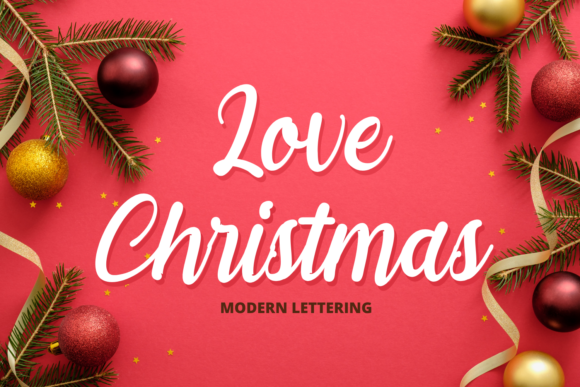
Dive into the enchanting world of Christmas with our exquisite Love Christmas Font, a creation of fiqiart that captures the festive spirit with every stroke. This script font is more than just a collection of letters; it's an artistic expression of joy, warmth, and all the magical moments that make Christmas so special.
Let your creativity dance to the rhythm of Love Christmas Font, a script font that captivates with its bold and casual charm. Its playful curves and whimsical flourishes lend a touch of elegance and sophistication to any design, making it a perfect choice for adding a unique and personal touch to your Christmas-themed projects.
Imagine the wonders you can create with Love Christmas Font. Design eye-catching Christmas cards that spread holiday cheer to your loved ones. Personalize Christmas ornaments with heartfelt messages that evoke the true meaning of the season. Create enchanting social media posts that capture the magic of Christmas and make your audience feel the warmth and joy of the holidays.
With Love Christmas Font, the possibilities are endless. Unlock your creative potential and let your imagination soar as you design stunning invitations for Christmas parties, create beautiful gift tags that add a special touch to your presents, or craft heartfelt letters to Santa that spark the magic of Christmas in children's hearts.
This font is not just a tool; it's an extension of your creativity, a brush that paints the canvas of your imagination with the vibrant hues of Christmas. Embrace the spirit of the season and let Love Christmas Font guide you on a creative journey that brings joy, wonder, and festive cheer to all who encounter your designs.
Step into the realm of creativity with Love Christmas Font, and experience the transformative power of a font that captures the essence of Christmas. Let your designs overflow with the warmth and love of the holiday season, and create memories that will last a lifetime.